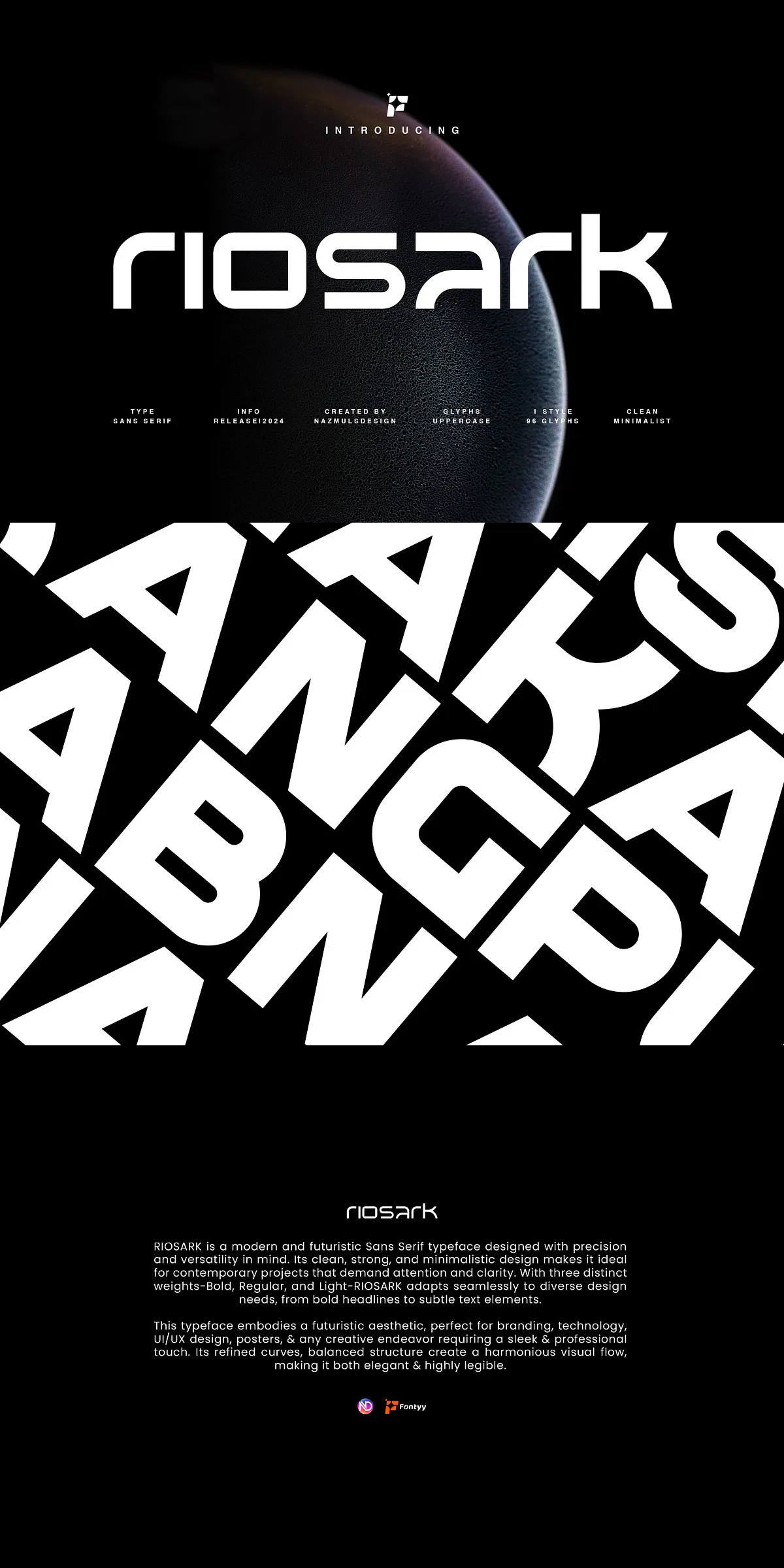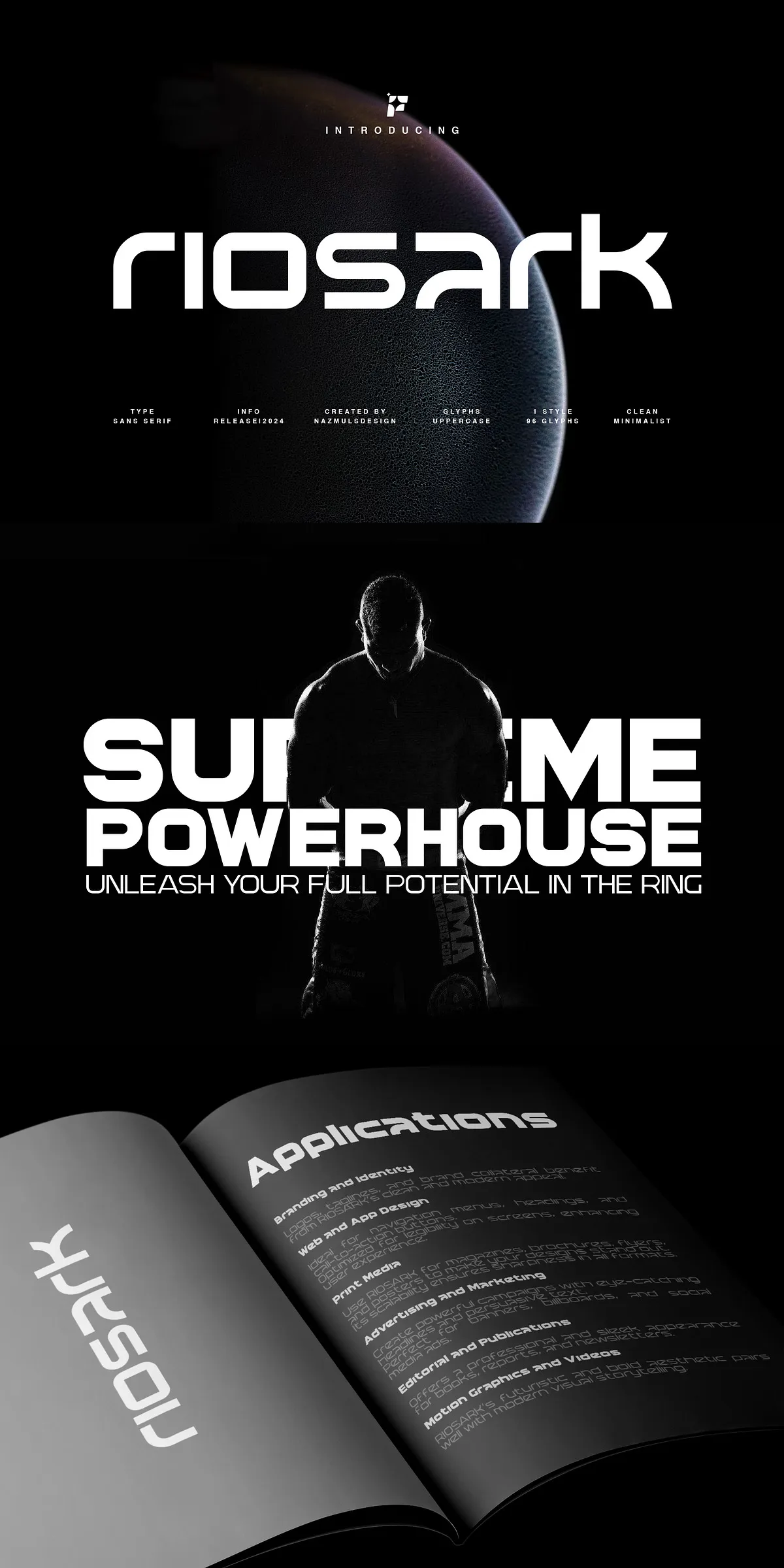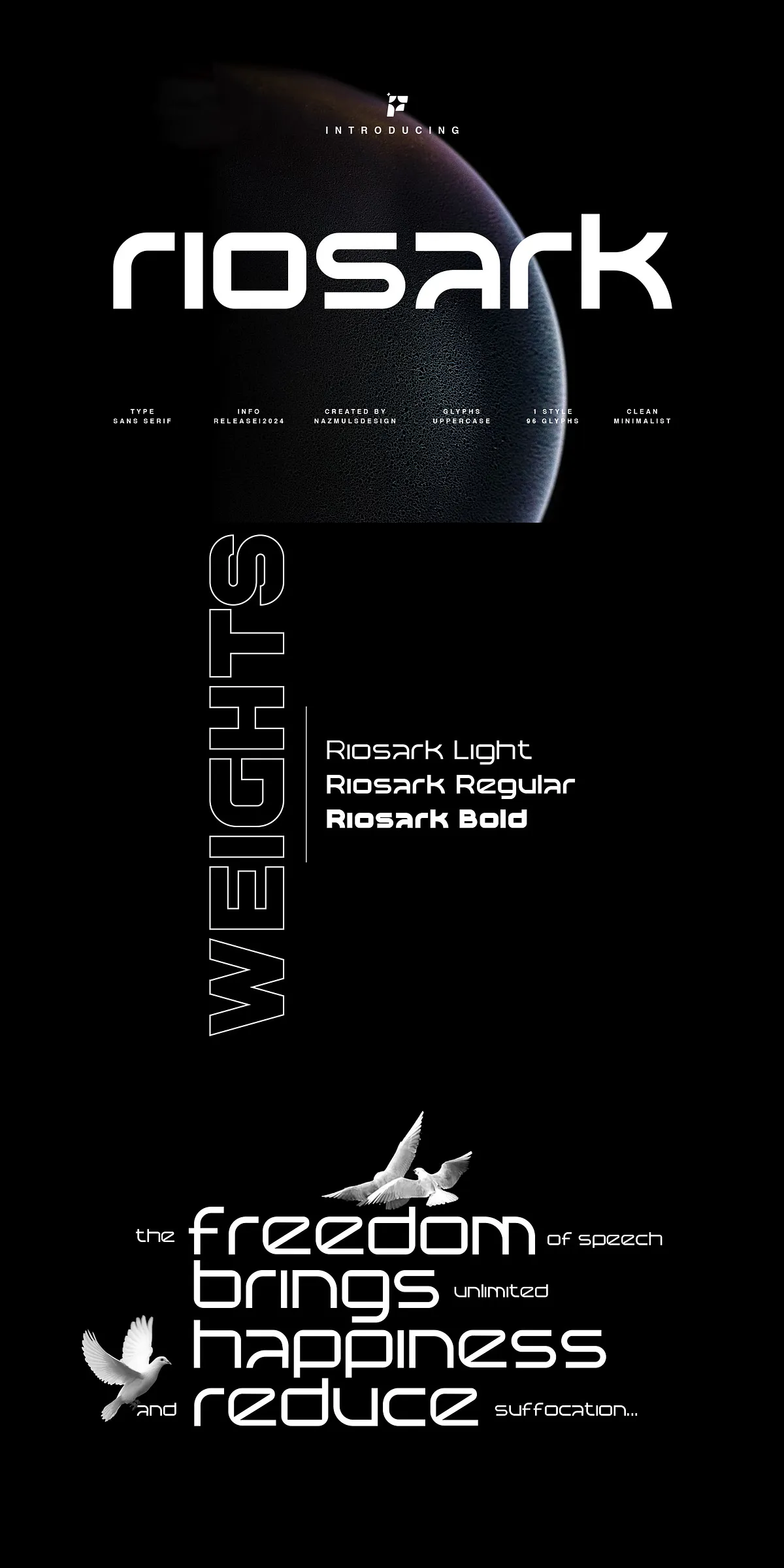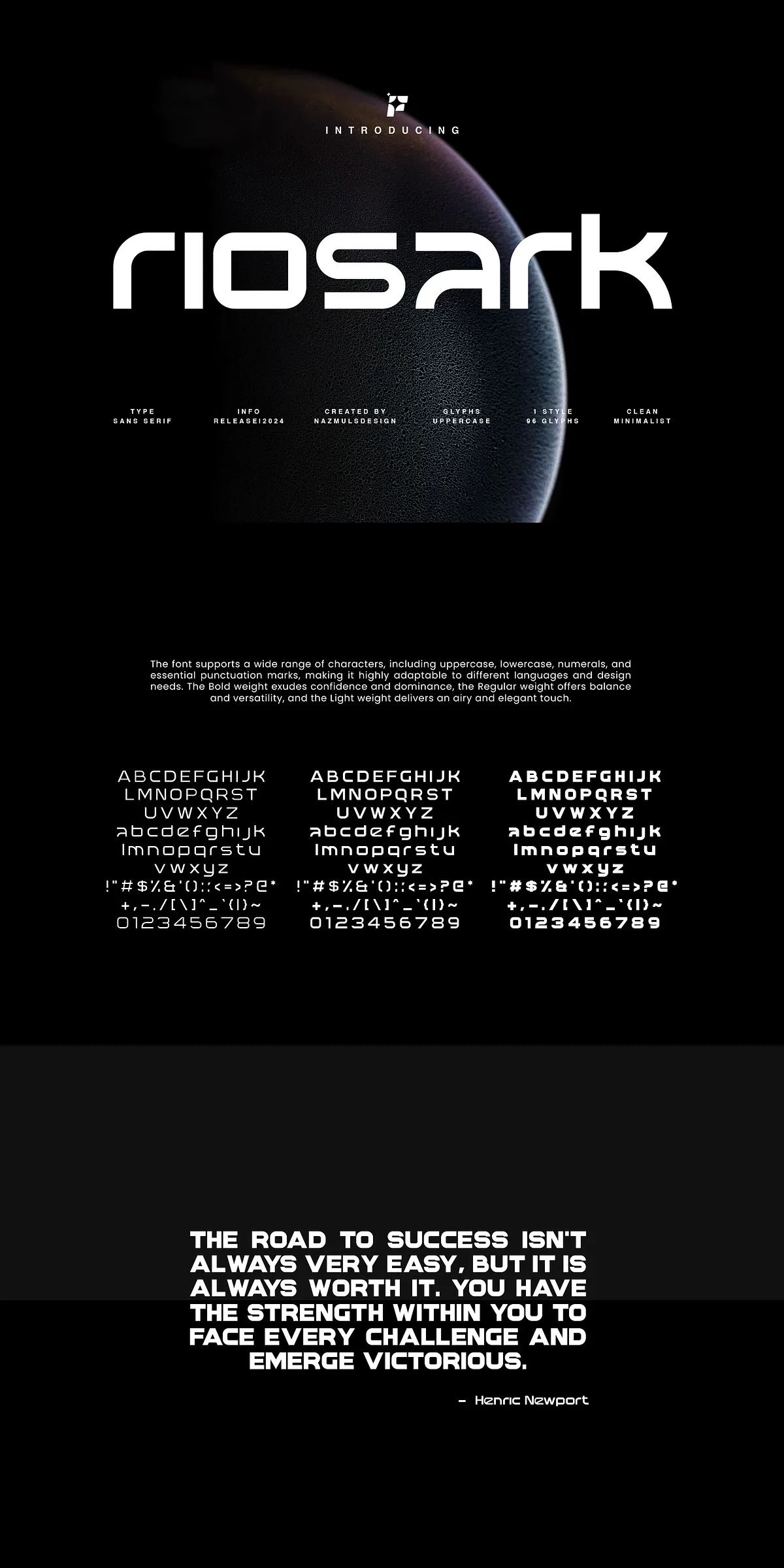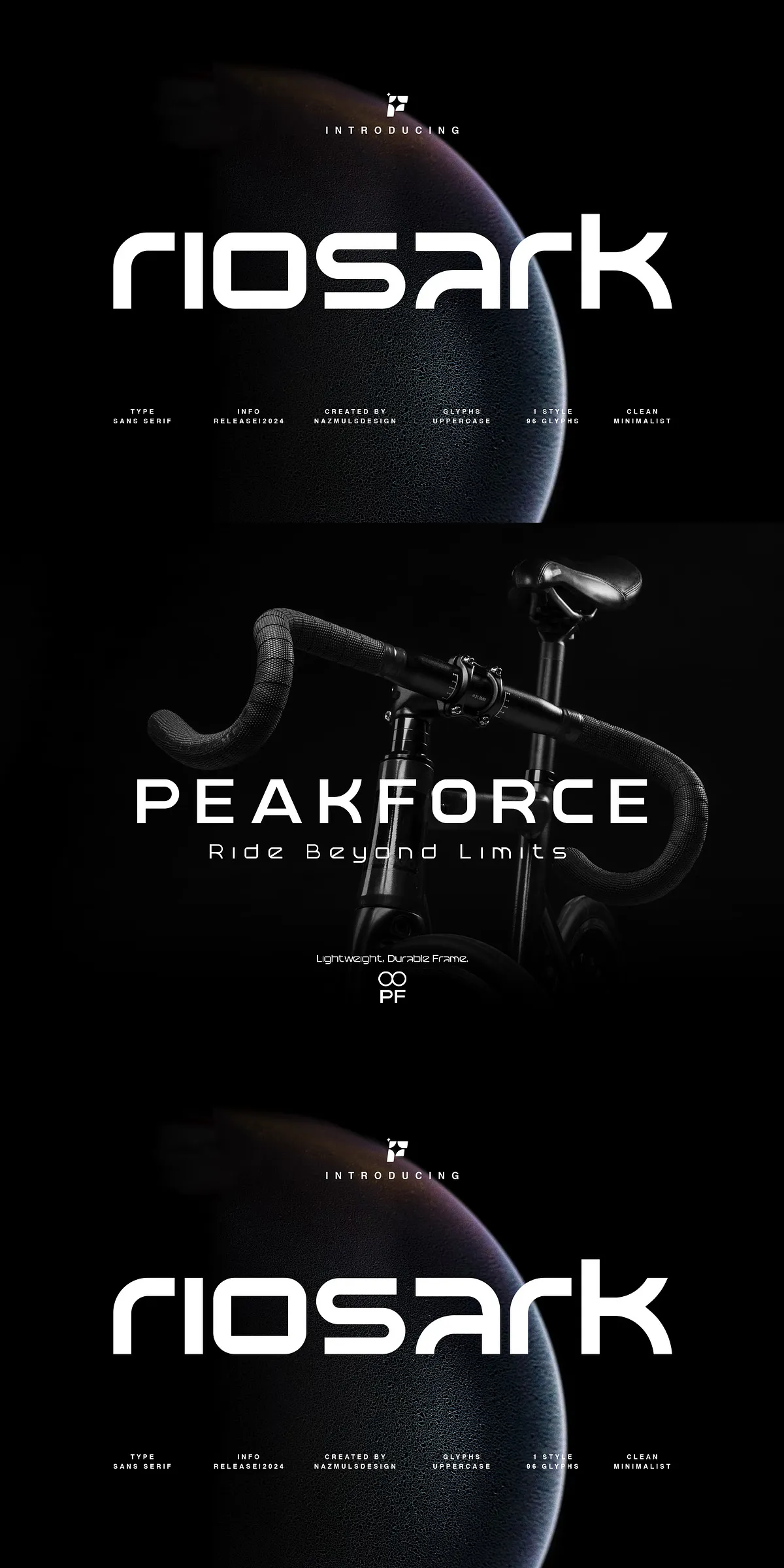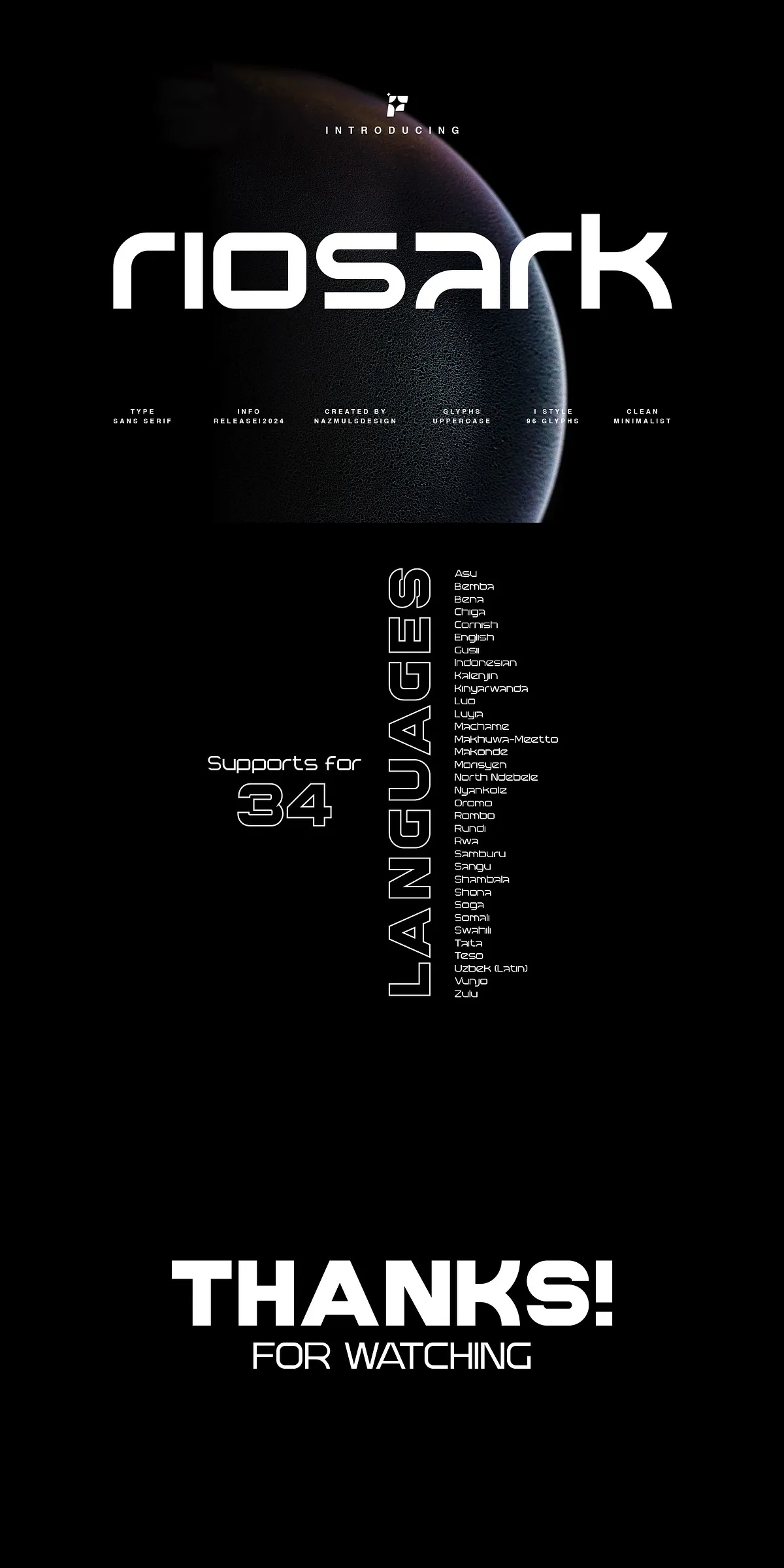
Prepare to redefine the visual language of tomorrow with RIOSARK, a bold, modern, and futuristic sans-serif typeface engineered for clarity, strength, and seamless adaptability. This isn’t just a font—it’s a strategic design tool for creators who demand precision, elegance, and a forward-thinking aesthetic. Built for the digital age, RIOSARK merges minimalist form with powerful presence, making it the ultimate choice for projects that need to stand out in an ever-crowded visual landscape.
Form Meets Function: The Design Philosophy Behind RIOSARK
At its core, RIOSARK is a triumph of intentional design. Every curve, stroke, and angle is meticulously crafted to deliver maximum readability and visual harmony. Its clean, geometric structure reflects a commitment to simplicity, while its refined details inject a sense of sophistication and innovation. This balance between minimalism and impact creates a typeface that feels both futuristic and timeless—perfect for branding, technology, and high-end editorial projects.
Rounded yet sharp, soft but structured, RIOSARK’s characters feature perfectly balanced proportions and generous spacing that enhance legibility at any size. Whether used in a massive digital billboard or a sleek app interface, the font maintains its crisp clarity and professional polish. It’s not just about looking good—it’s about performing flawlessly across all mediums and scales.
Three Weights. Infinite Possibilities: Bold, Regular, Light
RIOSARK’s true power lies in its three carefully calibrated weights—Bold, Regular, and Light—each designed to serve a distinct creative role:
- Bold: Command attention with maximum impact. Ideal for headlines, logos, hero sections, and poster designs where dominance and confidence are key.
- Regular: The workhorse of the family. Perfect for body text, captions, navigation menus, and general text elements that need clarity and professionalism.
- Light: Add elegance and subtlety. Excellent for minimalist designs, backgrounds, overlays, or accents where a delicate yet modern touch is desired.
These weights don’t just offer stylistic variety—they create visual hierarchy, narrative depth, and flexibility. Seamlessly combine them to craft dynamic layouts, contrast strong statements with quiet accents, and guide the viewer’s eye through your message with precision.
Powerful Applications: Where RIOSARK Shines
Riosark’s versatility makes it an indispensable asset across a wide range of industries and design disciplines. Here’s where it delivers the most impact:
- Branding & Identity Design: Build bold, futuristic brands for tech startups, innovation labs, or premium service providers. RIOSARK instantly communicates modernity, trust, and forward momentum.
- UI/UX & Digital Product Design: Create clean, intuitive user interfaces for apps, websites, and dashboards. Its sharp lines and consistent spacing improve readability and visual comfort for users.
- Technology & Product Packaging: Elevate the presentation of tech gadgets, smart devices, and digital platforms with a sleek, professional font that matches their innovative nature.
- Posters, Flyers & Advertising: Make your messages stand out in a crowded space. Use bold variants to capture attention and light variants for subtle, sophisticated context.
- Editorial & Magazine Layouts: Design pages with high visual contrast and professional polish, especially in sections focused on futurism, science, or innovation.
Unlock Your Design Potential with RIOSARK
Stop searching for a font that just “works.” With RIOSARK, you get a typeface that thrives. It’s more than a visual element—it’s a statement of innovation, efficiency, and design excellence. Whether you’re crafting a brand identity, building a user experience, or launching a campaign, RIOSARK gives you the tools to communicate with impact.
Elevate your next project with RIOSARK—the modern, futuristic, and endlessly adaptable font that doesn’t just keep up with the future… it helps shape it.